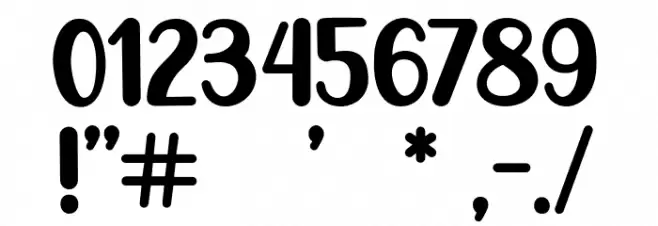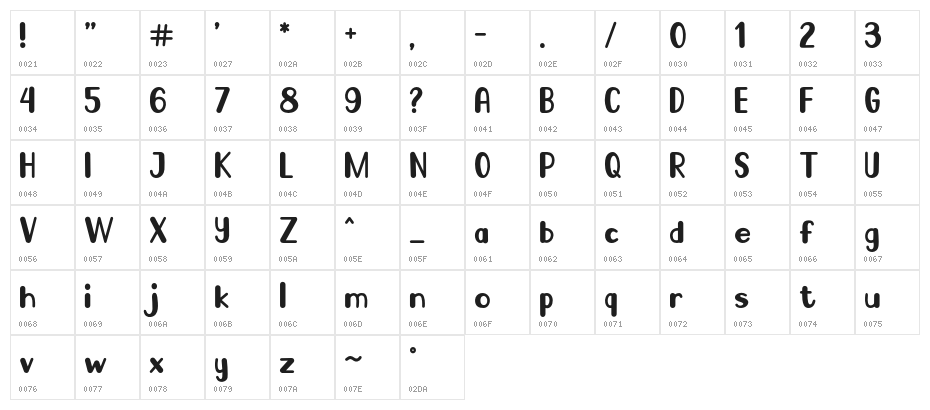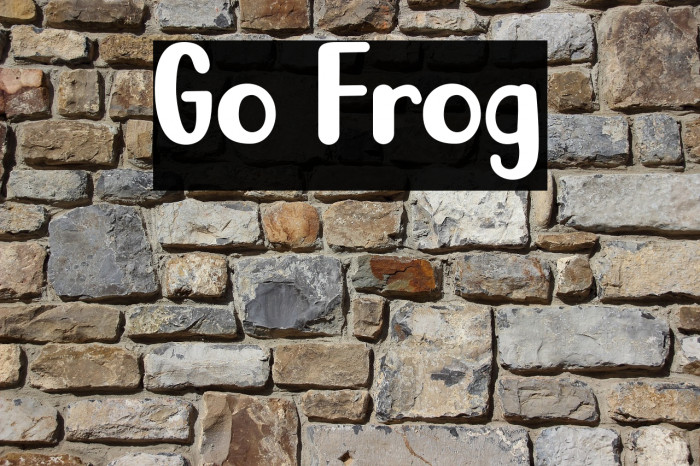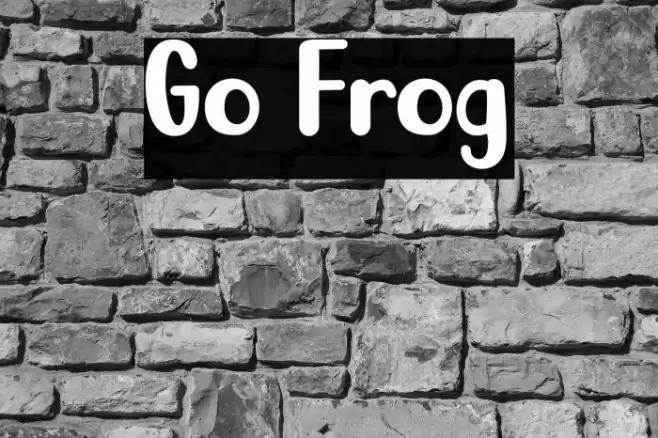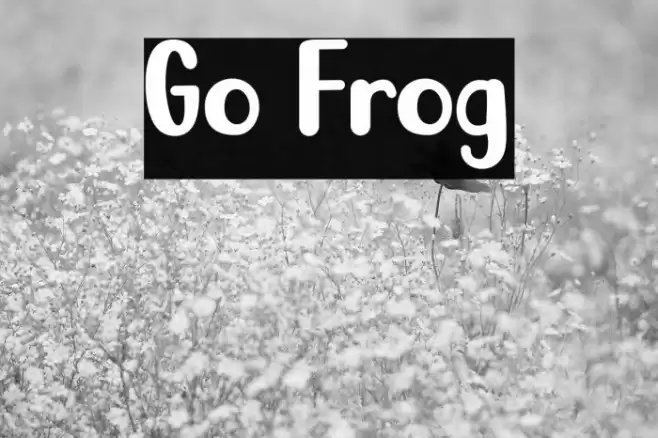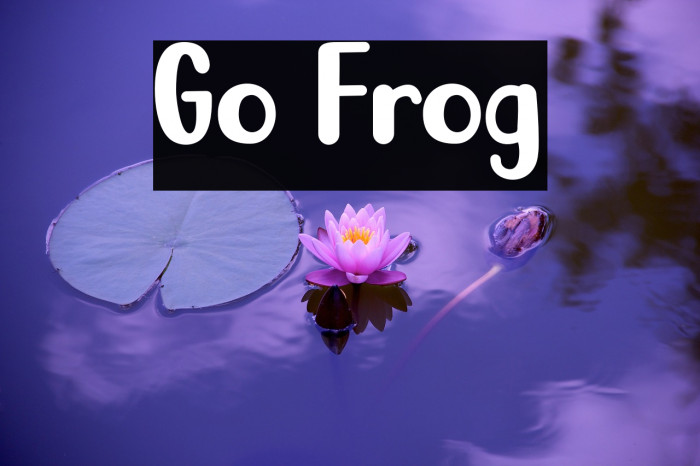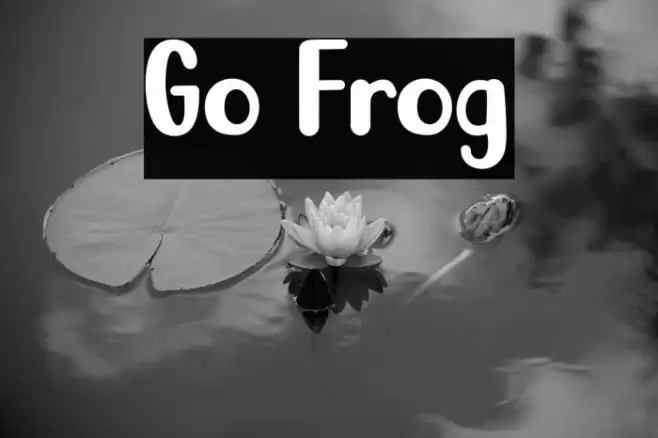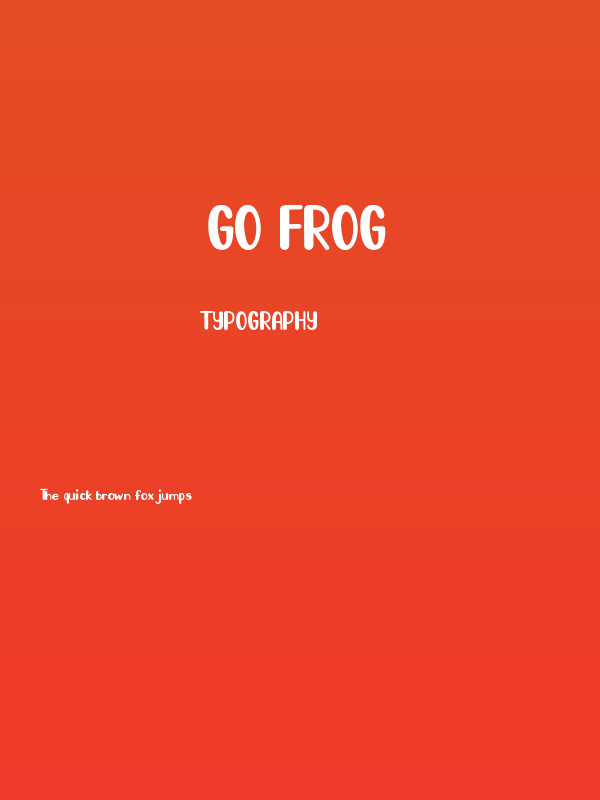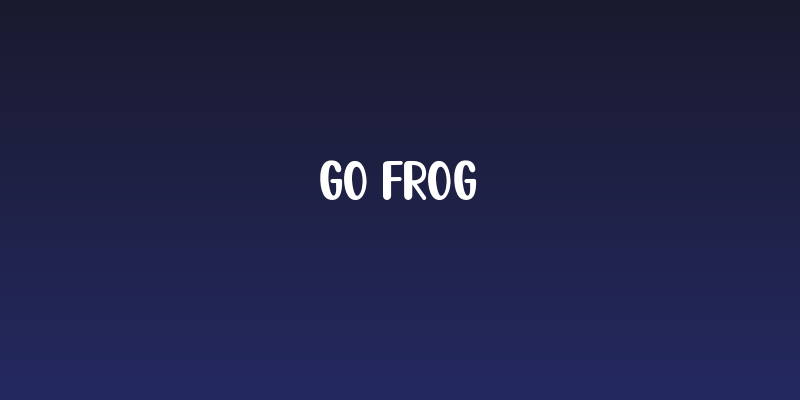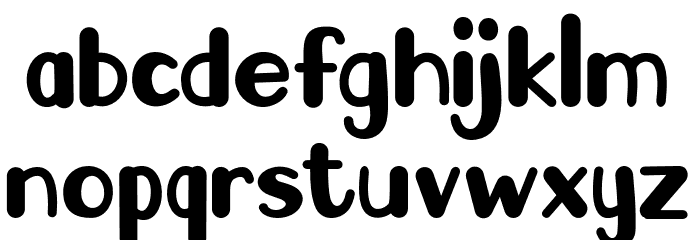
Go Frog Font
Go Frog Description
This playful and bold font features rounded edges and a friendly, approachable style. The characters are thick and uniform, with a consistent stroke width that gives it a cohesive look. The uppercase letters are slightly taller than the lowercase, adding a touch of whimsy. The numbers and special characters maintain the same playful aesthetic, making it versatile for various uses. Its rounded forms and smooth curves make it ideal for projects that require a fun and engaging appearance.
| Proposed Projects | Ideal for children's books, playful branding, posters, and social media graphics. |